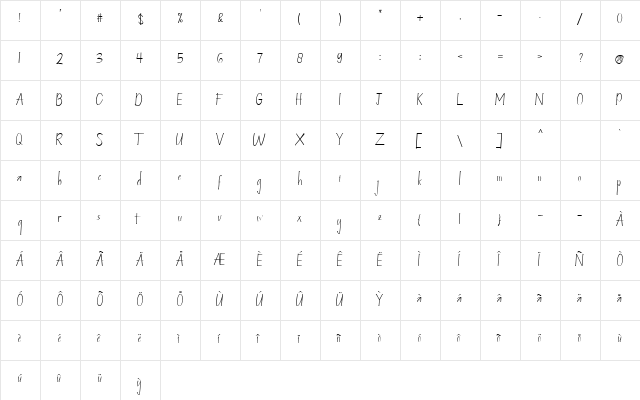
straighforwatd Regular
| Designer | Typeline Studio 2020 |
Design Context for straighforwatd Typeface
straighforwatd takes a measured approach to typography — its balanced proportions and neutral character make it a reliable workhorse for both digital and print work.